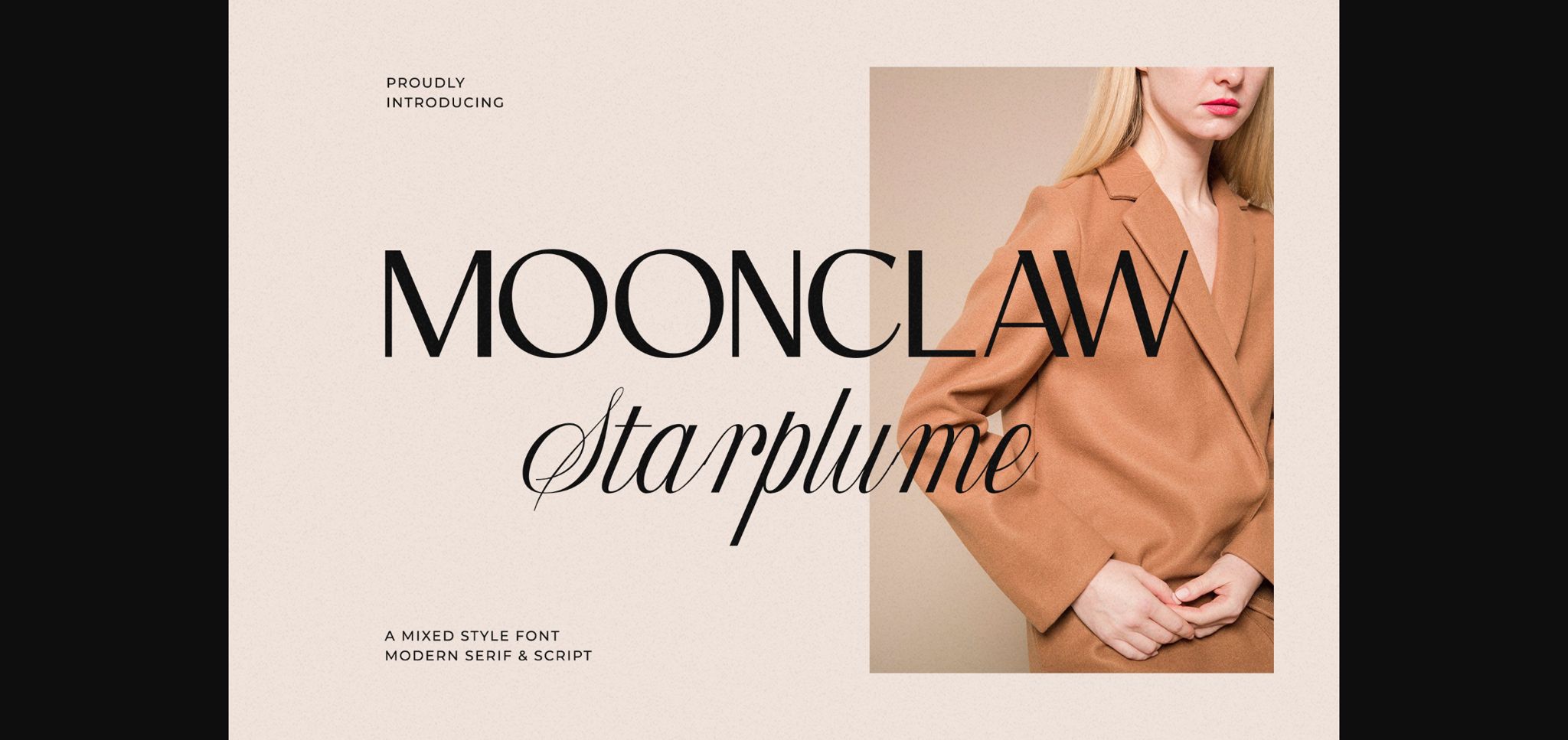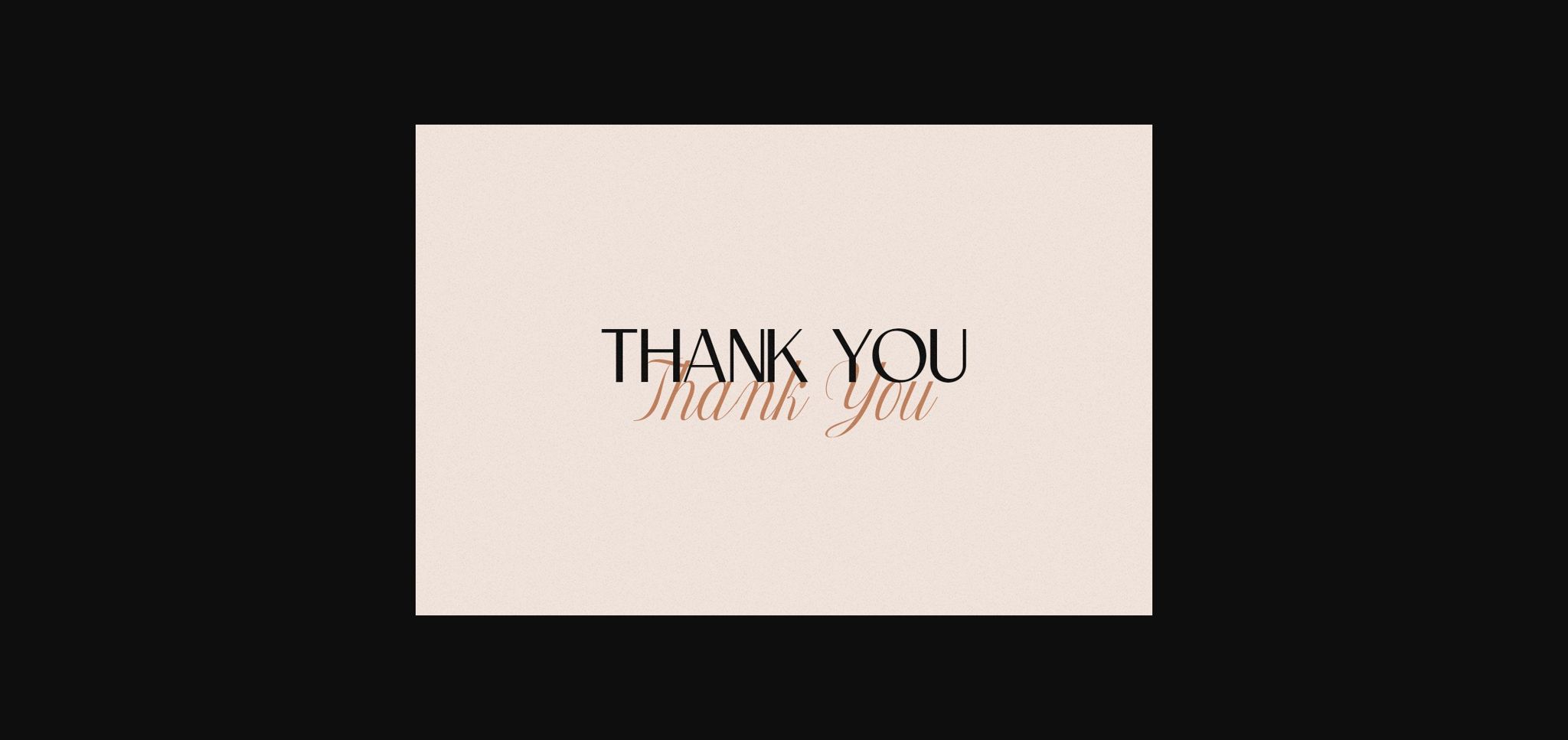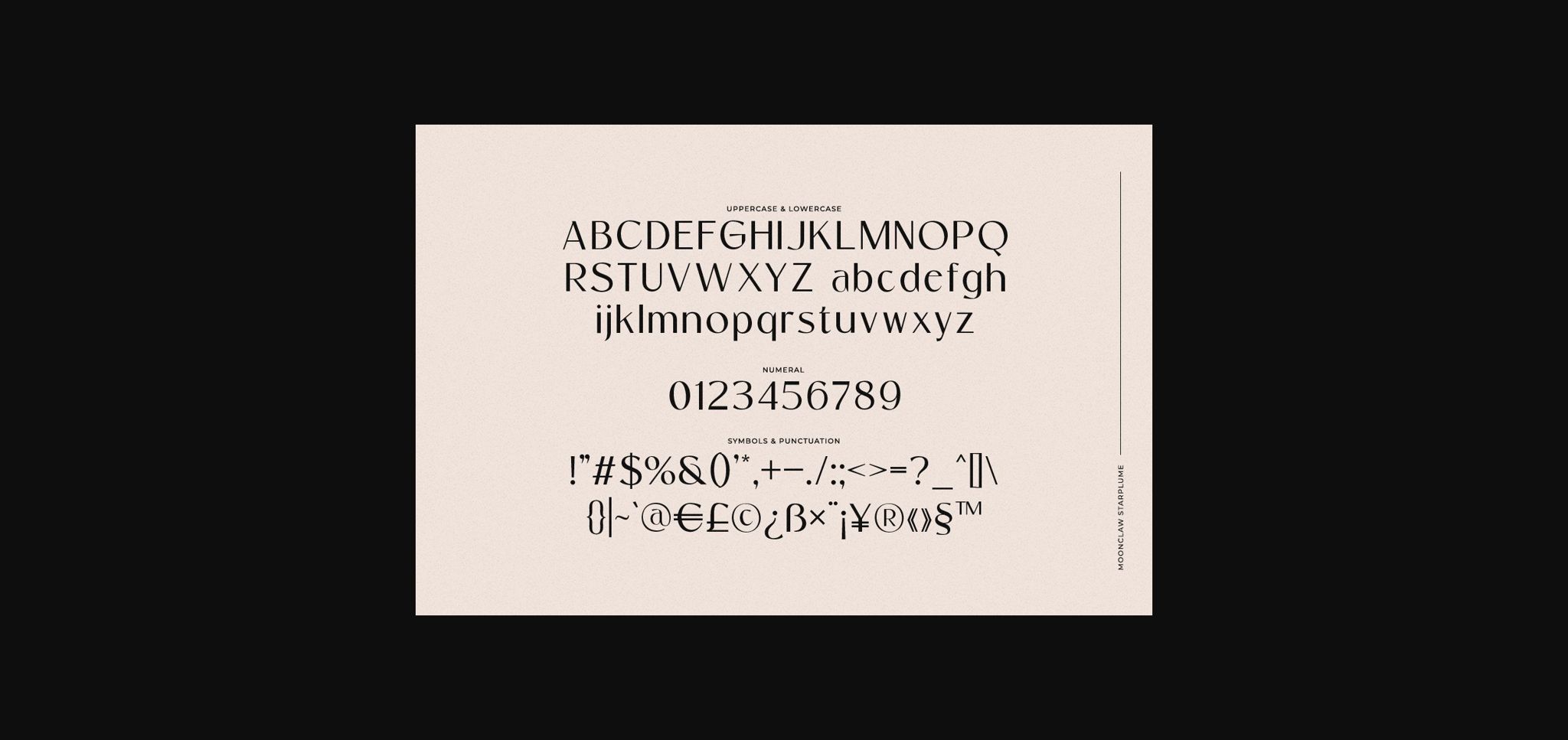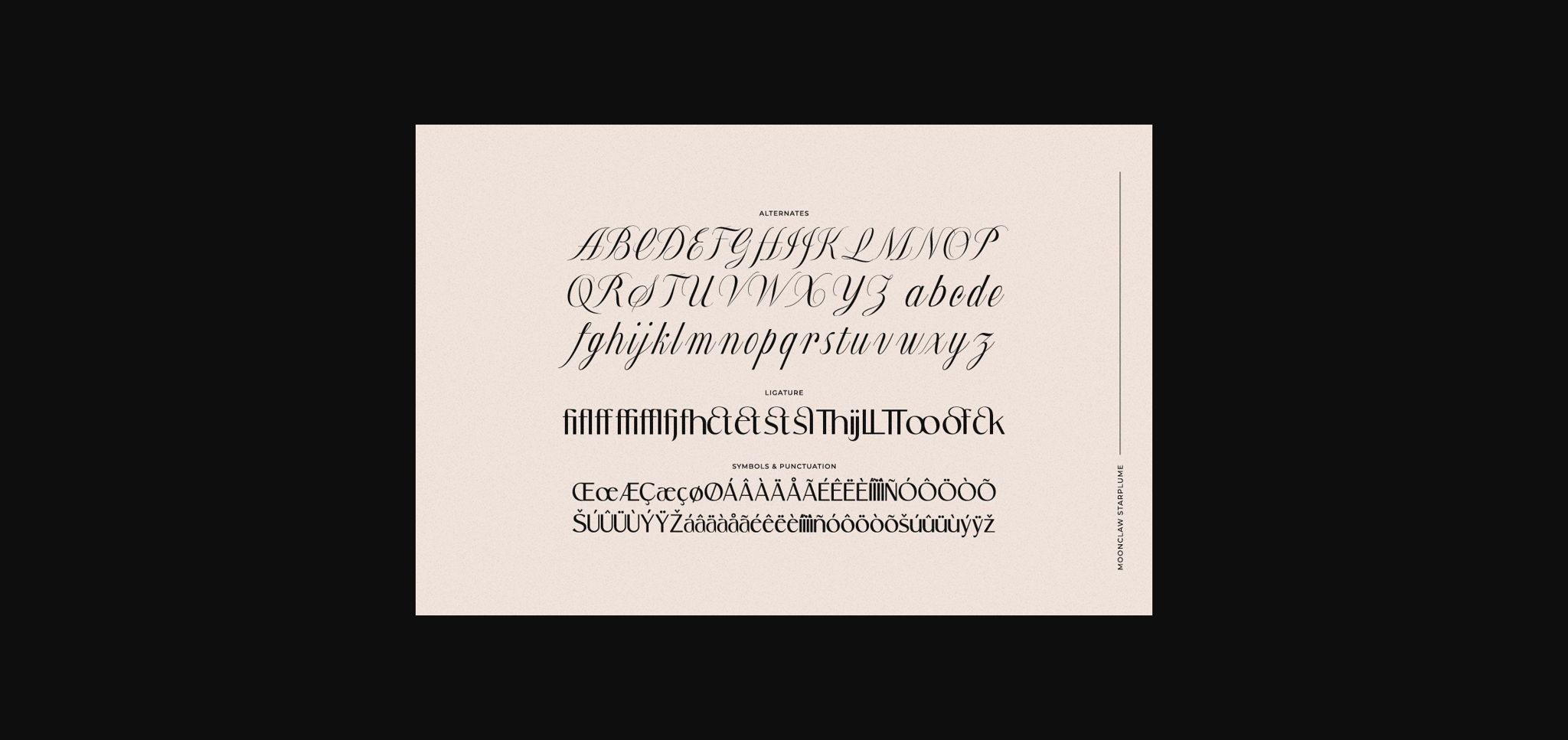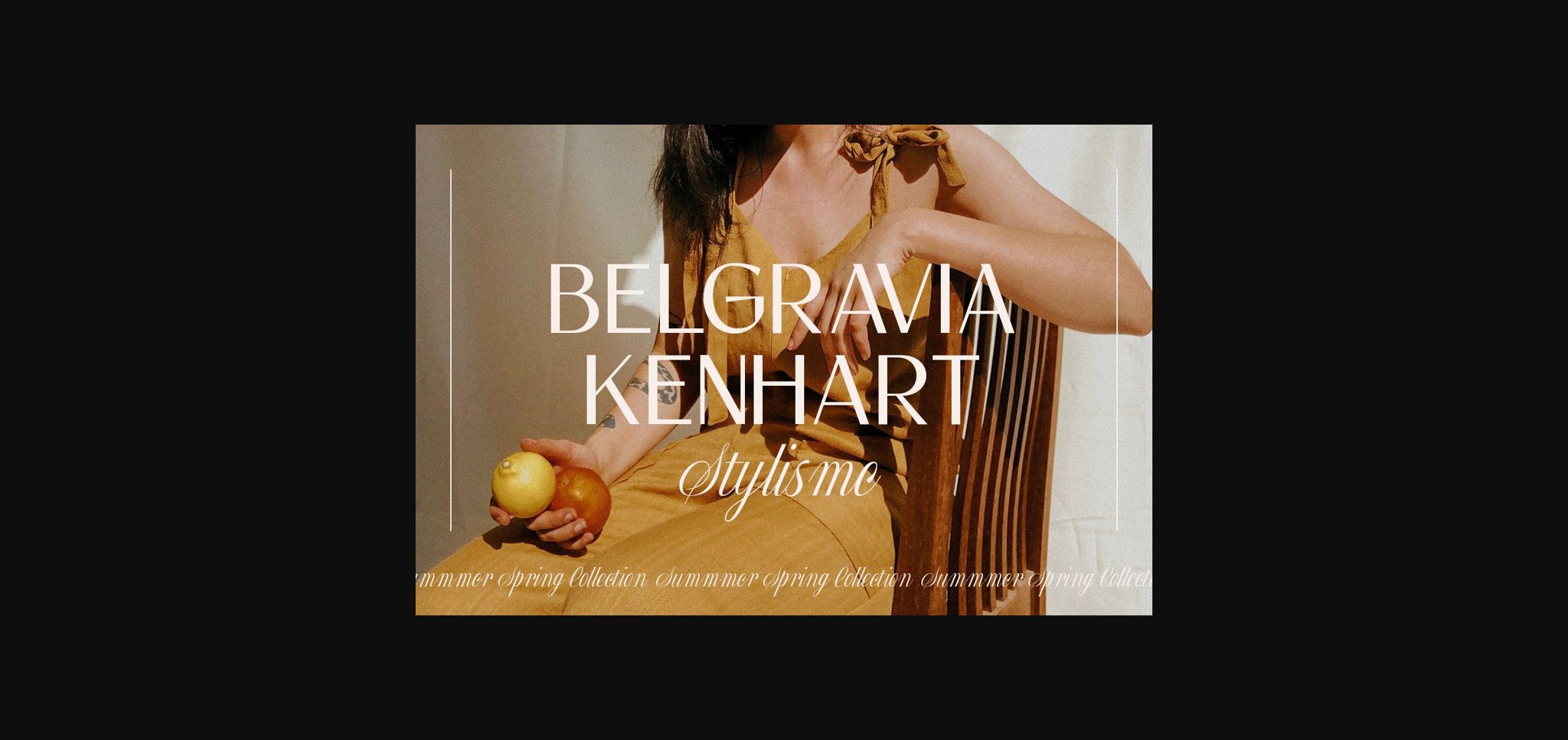
About Moonclaw Starplume Font
Moonclaw Starplume is a mixed sans serif and script font.
No matter the topic, this font will be an incredible asset to your fonts’ library, as it has the potential to elevate any creation.